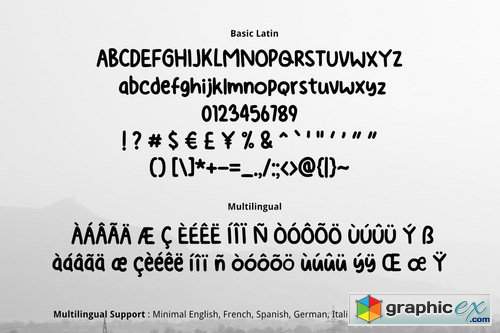
Red Angus Font
Red Angus Font is simple cute multipurpose handmade font, suitable for many project children book, quotes, logo , heading , title etc.